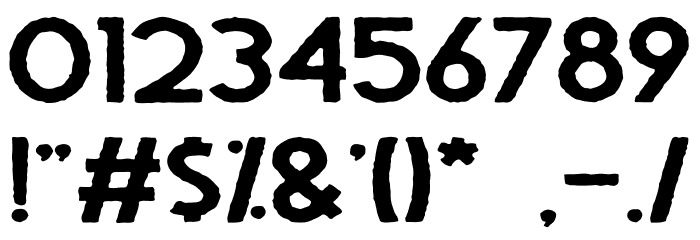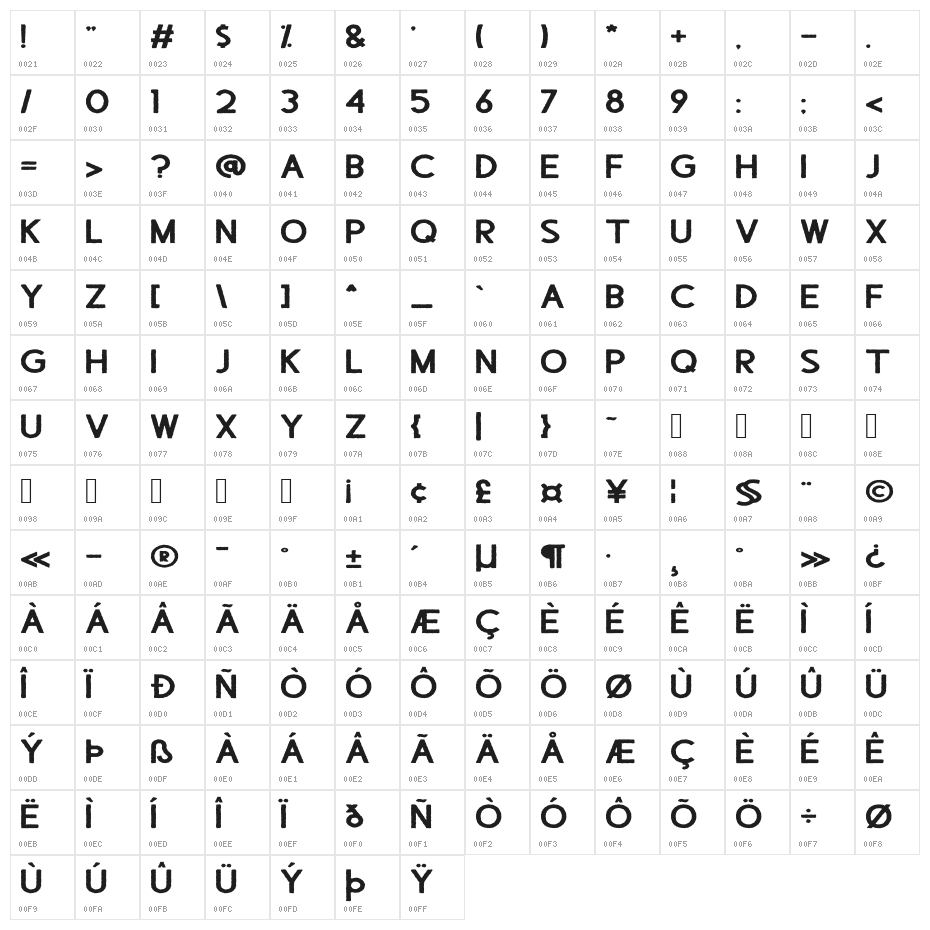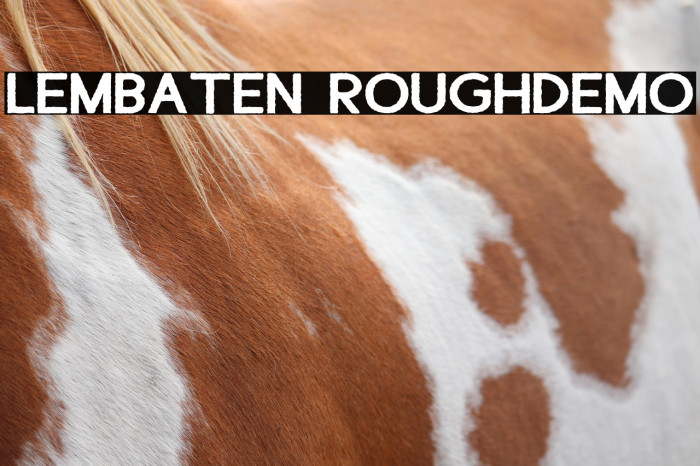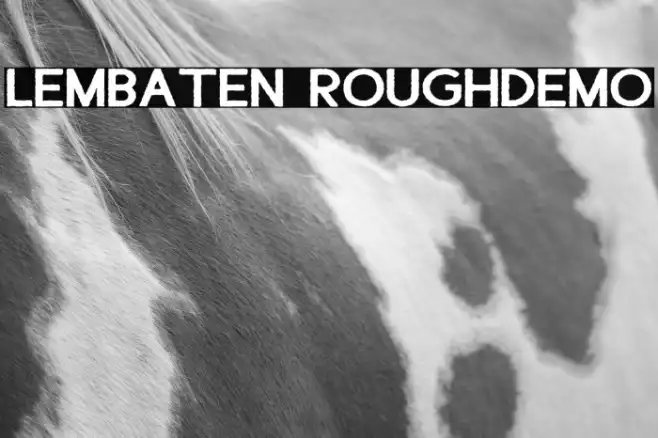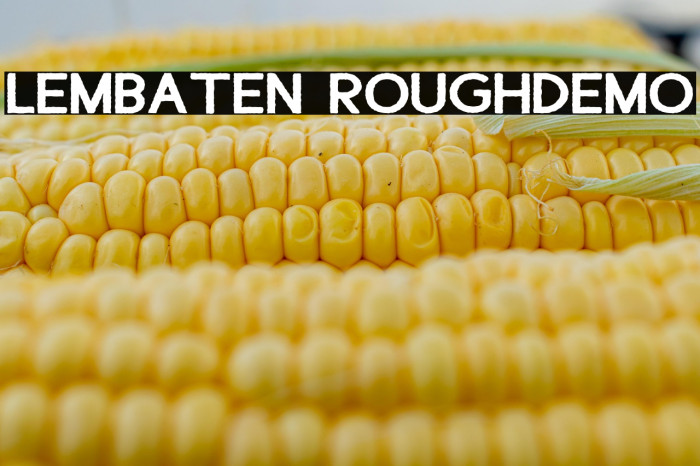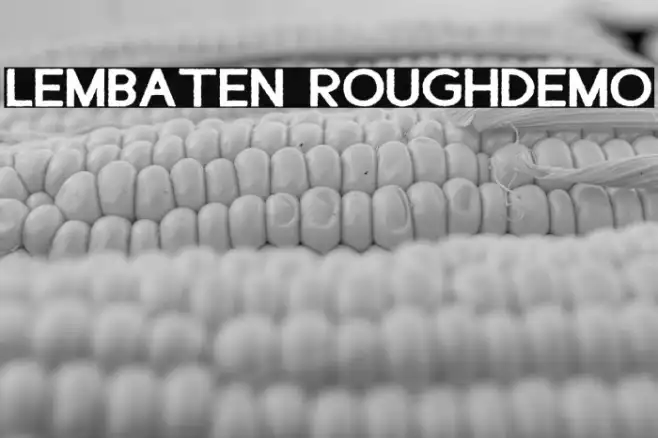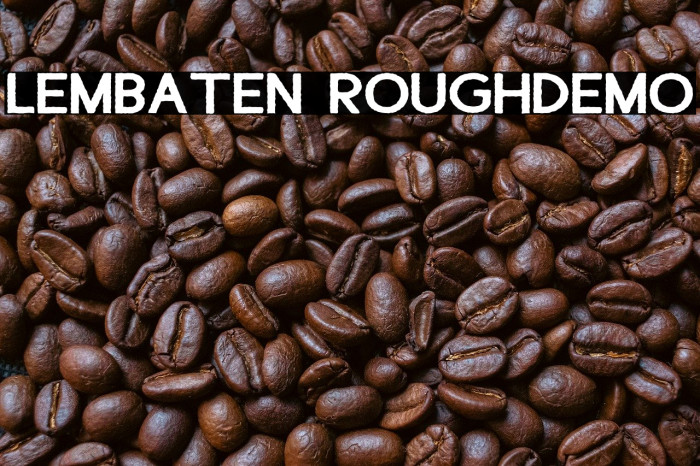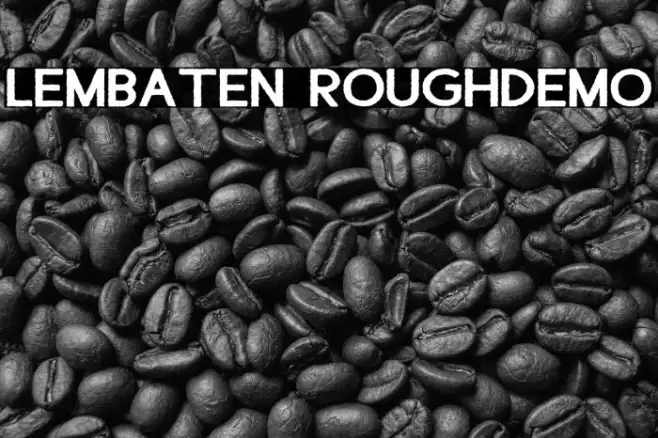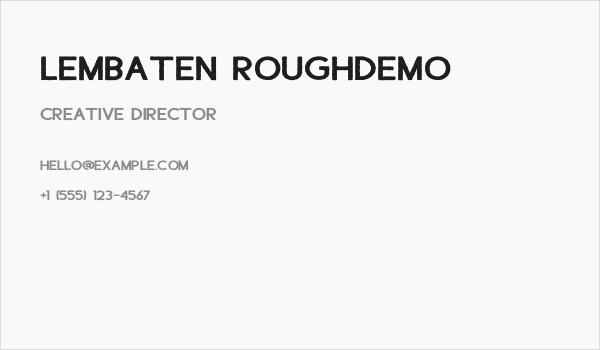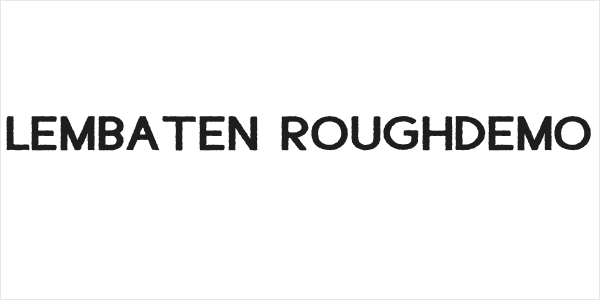
Lembaten RoughDemo Font
Lembaten RoughDemo Description
This font features a rough, hand-drawn appearance with a bold and slightly distressed texture. The characters are uppercase and numerals, with a consistent thickness that gives a strong, impactful look. The edges are uneven, adding a rustic and organic feel. The spacing between characters is relatively tight, which enhances its bold presence. This style is reminiscent of vintage or handcrafted signage, making it suitable for projects that require a personal touch or an artisanal aesthetic.
| Proposed Projects | Ideal for branding, packaging, posters, and any design that requires a handcrafted or vintage feel. |